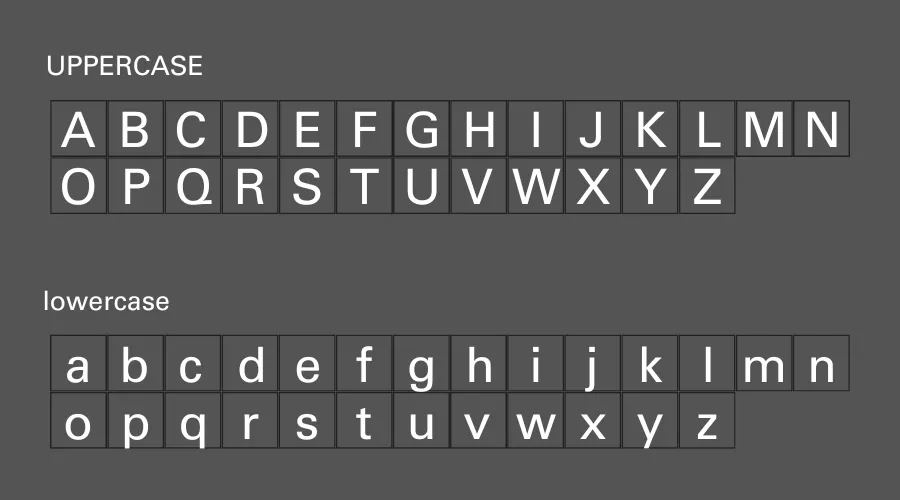
About Univers Font
A sizable collection of Sans-serif types notable for making the material clear is Univers Font. The typeface was created in 1957 and quickly became famous for its unique characteristics and characters.
Undoubtedly, no developer has ever chosen another typeface for their work. The person responsible for creating this popular font is Swiss font designer Adrian Frutiger, who was well-known in the 20th century for his work.
Frutiger and Avenir fonts are a couple of his other renowned creations. The first sans-serif typeface with a constant and broad variety of width and height is the universe font. The French studio Deberny & Peignot and Linotype jointly released the typeface.